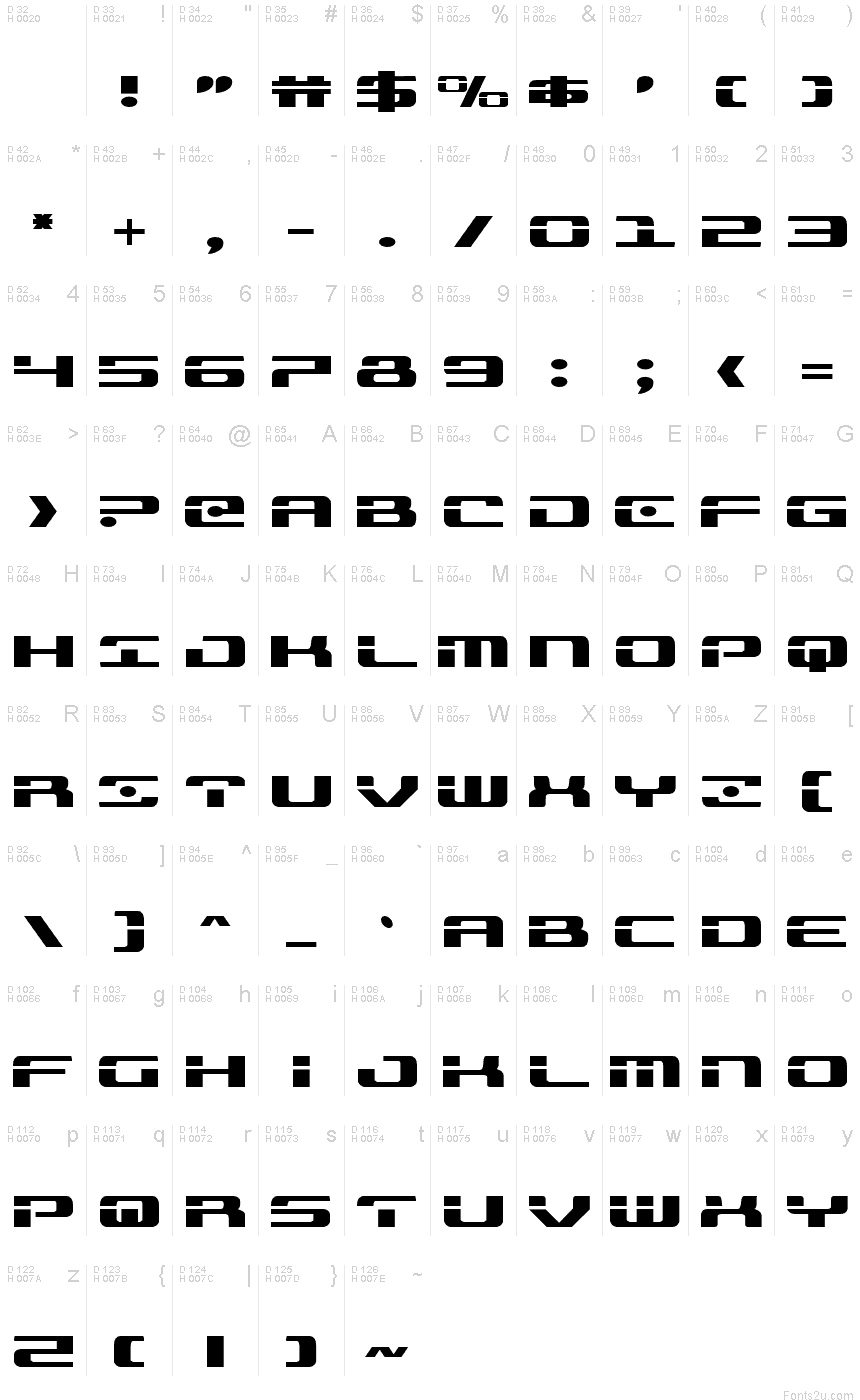
Troopers Expanded by Daniel Zadorozny of Iconian Fonts is a free futuristic display font with an exceptionally wide, low profile. Its heavy geometric strokes combine rounded joins with squared openings and sharp, engineered cuts. The lettering feels fast and machine-made.
As an interface element, it turns lettering into a sleek piece of sci-fi machinery. That makes it apt for game branding, electronic music covers, and motorsport posters. Its strongest use is a cinematic science-fiction title.
Troopers Expanded